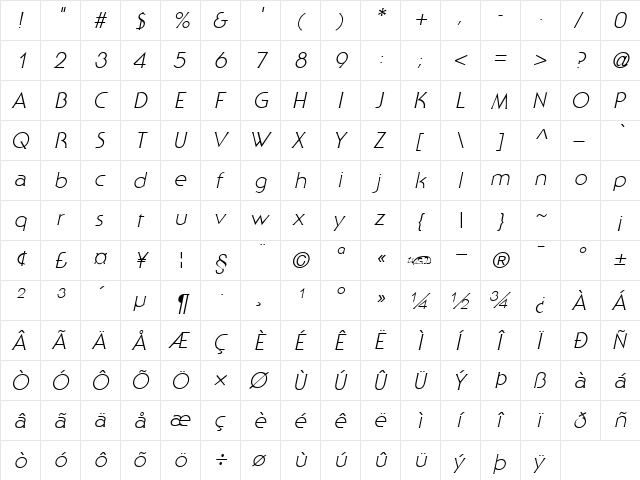
Staid Italic
Design Context for Staid Typeface
Staid is a composed and adaptable typeface that performs quietly and consistently across a wide range of design contexts. The dynamic lean of this cut emphasises speed and emphasis in any layout.
Pro Tip: Use Staid for emphasis, pull quotes, and subheadings where its slanted energy can add rhythm to the layout.